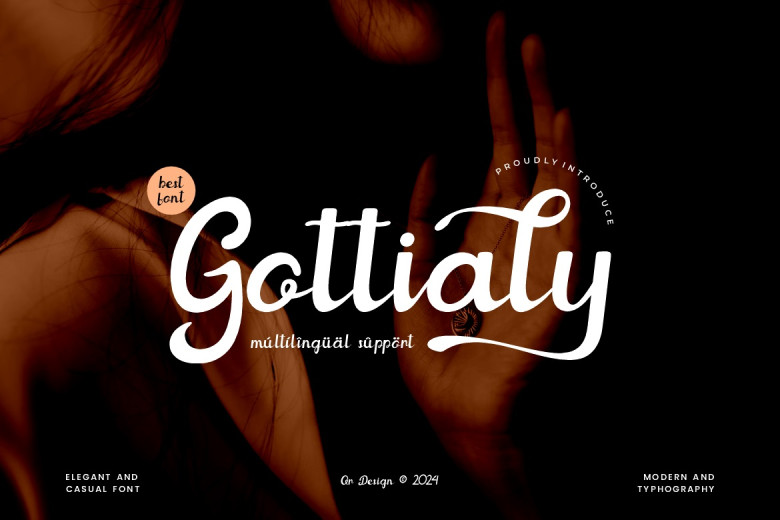
Gottialy is a stunning handwritten font with rather meaningful and curvilinear shapes. It is now ideal for use in enhancing personal and highly elegant blaze to invitations, logos, and greeting cards. The letters are smooth and connected, so your text will look elegant and different from the other texts you can find.